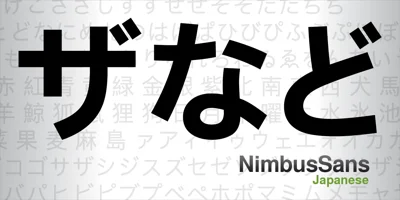
Nimbus Sans Japanese Font
Experience the perfect harmony of Latin and Japanese typography with Nimbus Sans Japanese Font, a versatile sans-serif family that delivers exceptional readability across both writing systems. This professional-grade typeface combines Swiss precision with Japanese typographic traditions for truly bilingual design solutions.
Why Nimbus Sans Japanese Excels
1. Bilingual Design Mastery
Seamless visual rhythm between Latin and Kanji
Stroke width optimized for Japanese readability
Consistent x-height across writing systems
2. Cross-Cultural Applications
Engineered for:
International corporate branding
Bilingual UI/UX design
Transportation wayfinding
Technical documentation
Global product packaging
3. Technical Superiority
4 weights from Light to Bold
JIS X 0213 character coverage
OpenType features for typographic control
Excellent screen rendering
Professional Implementation
Nimbus Sans Japanese Font perfects:
Japanese-English annual reports
International airport signage
Global tech company interfaces
Academic publications
Government communications
Set 12-14pt for optimal bilingual readability
Designer Tip: Use 1.2x Latin line spacing for Japanese text blocks.
Key Advantages:
No visual "jump" between writing systems
Balanced ink coverage for print
Space-efficient without crowding
Why It's Unique:
Developed specifically to maintain typographic color consistency in mixed Japanese-English documents.
Perfect Pairing:
Use with Nimbus Sans Latin for perfect international typography systems.
Pro Insight:
The Medium weight works exceptionally well for bilingual mobile apps where space is limited.
Includes rare kanji variants
Alternative punctuation sets
Optimized for PDF embedding
Cultural Note:
Respects Japanese typographic traditions while meeting international design standards.
Expert Recommendation:
Use slightly tighter tracking (-10 to -20) for Japanese text versus Latin text.
Technical Note:
Character proportions follow Japanese Ministry of Education guidelines for optimal recognition.